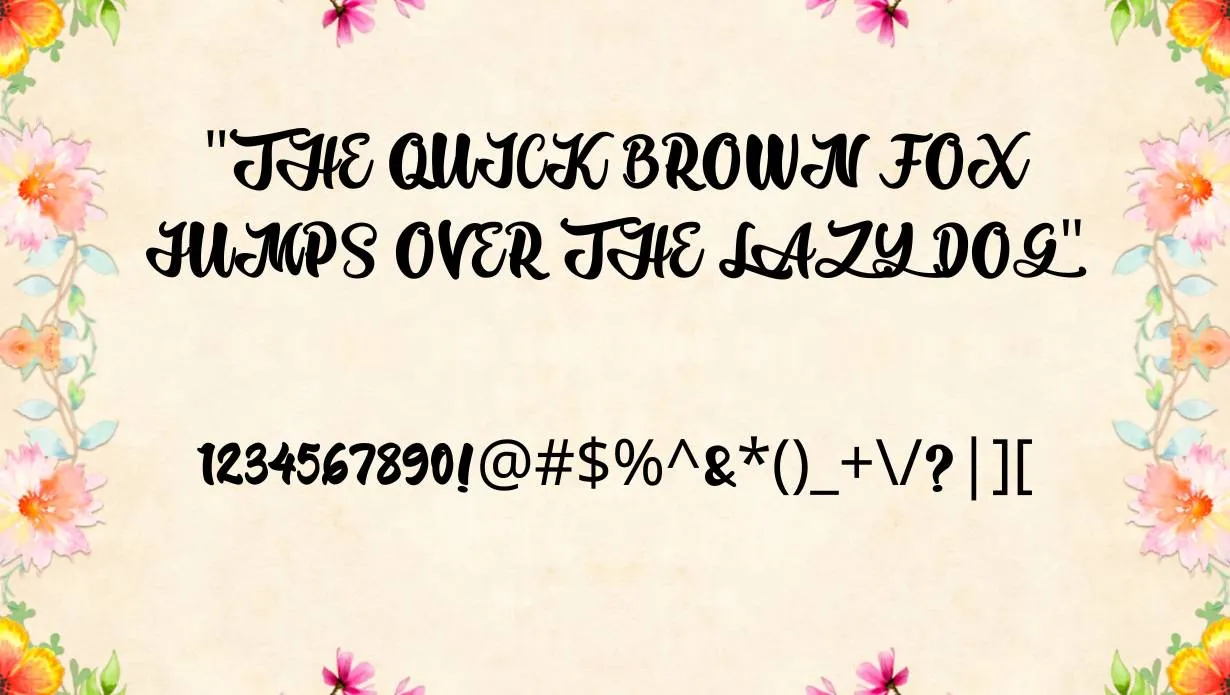
Hipster Font is a trendy and edgy typeface inspired by contemporary urban and subculture design trends. Its bold and unconventional letterforms make it a popular choice for projects that embrace non-conformity and creativity.
Hipster Font is commonly used in alternative music posters, street fashion, and artistic endeavors that seek to challenge traditional design conventions.
| Name | Hipster Font |
| Designer | Bangkit Tri Setiadi |
| Style | Brush |
When striving for a design that stands out and captures attention, the key is to pair this font with the choc font.